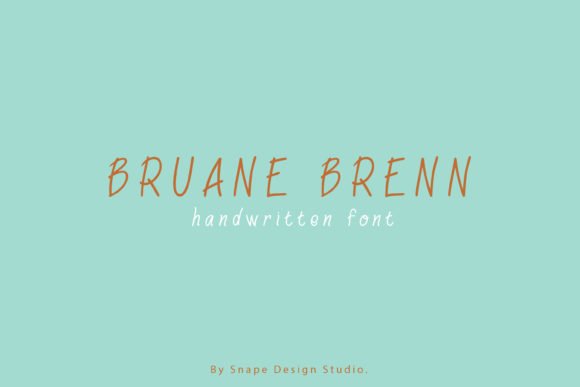
Enter the Bruane Brenn Font, a sweet and simple handwritten font designed to bring your creative ideas to life. With its charming, classic feel, this versatile typeface is perfect for a wide range of designs, from cute and playful to elegant and sophisticated. Whether you’re a seasoned designer or a creative enthusiast, the Bruane Brenn Font is a valuable addition to your toolkit, offering support for all characters of the English language and endless possibilities for your next project.
Bruane Brenn Font Key Features
- Font Style: Script, Brush Script
- Font Size: 2,000 glyphs
- Resolution: Scalable, suitable for print and digital media
- Language Support: Multi-language support, including Latin, Cyrillic, and Greek scripts
- Unique Characteristics: Hand-drawn, cursive, and elegant design, suitable for creative and artistic applications
Bruane Brenn Font Review
The Bruane Brenn Font is a unique and stylish addition to any design project. Here are a few things that work well: ✨
- Customizable letter spacing allows for precision control over the overall aesthetic.
- The varying weight and width options make it versatile for a range of applications.
- The font’s subtle flair on letterforms adds a touch of elegance to any text.
- The font may not be suitable for smaller text sizes due to the decorative flair.
- Some letters may appear less clear when used in isolation, potentially causing readability issues.
- The font’s distinctive style may not be to everyone’s taste, and its use may be limited by personal preference.
Overall, the Bruane Brenn Font is a great choice for designers looking to add a touch of sophistication to their work. While it may not be the best fit for every project, it’s certainly worth considering for those seeking a unique and stylish aesthetic. With some careful consideration of its limitations, the Bruane Brenn Font can be a valuable addition to any design arsenal.
Bruane Brenn Font is ideal for:
- Headings and titles in designs and documents.
- Adding a touch of elegance to digital and print materials.
- Creating a unique and memorable brand identity.